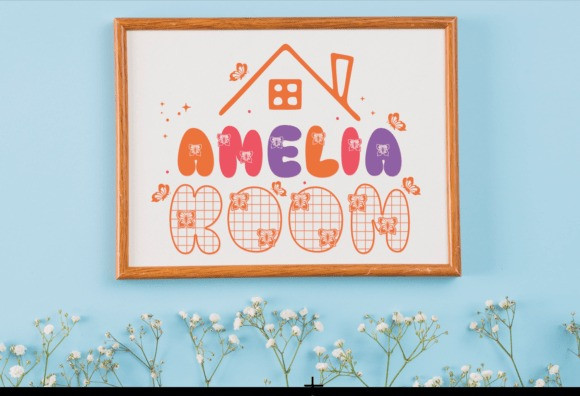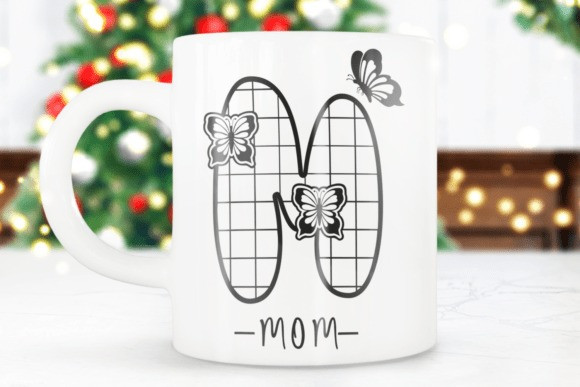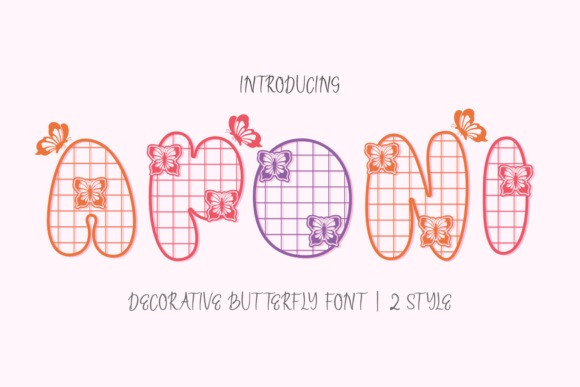
Aponi Display Font
Aponi Display Font is a whimsical and charming decorative font that brings the beauty of nature to your typography. Inspired by the graceful flight of butterflies, this font features two delightful styles: a playful outline version with a delicate grid pattern, and a bold, solid version for a more impactful statement.
Each letter is adorned with intricate butterfly motifs, lending a sense of airy elegance and joyful movement. The font’s rounded, friendly shapes and vibrant, multi-colored palette evoke a feeling of springtime bliss and creative freedom. Aponi is perfect for projects that require a touch of fantasy and a handcrafted feel, such as children’s books, greeting cards, party invitations, or branding for bohemian-inspired businesses. Let your words take flight with Aponi, a font that’s as enchanting as a butterfly’s dance.